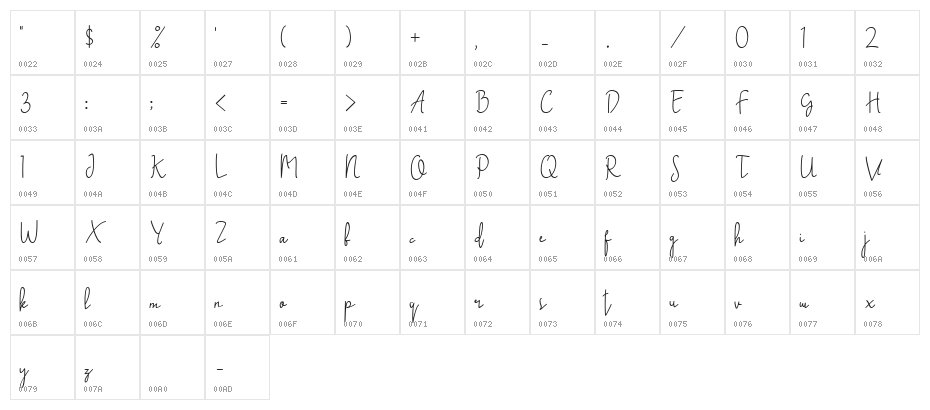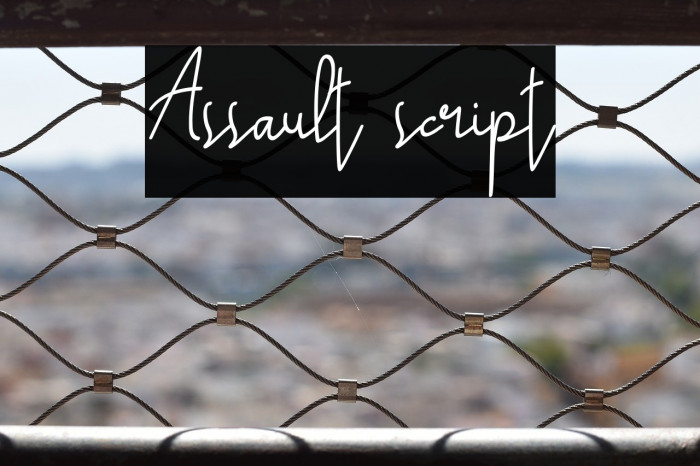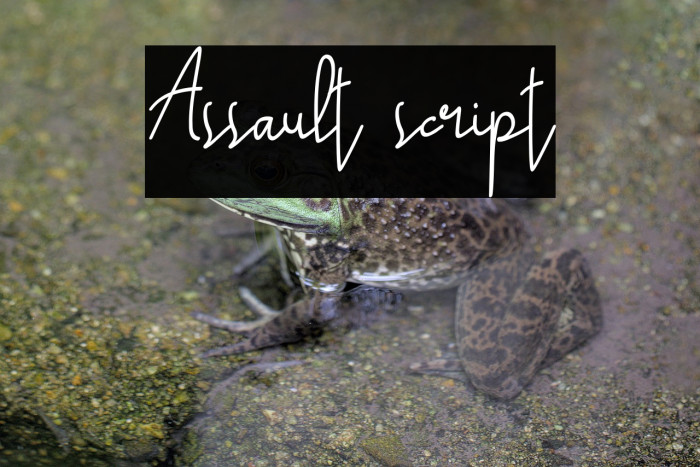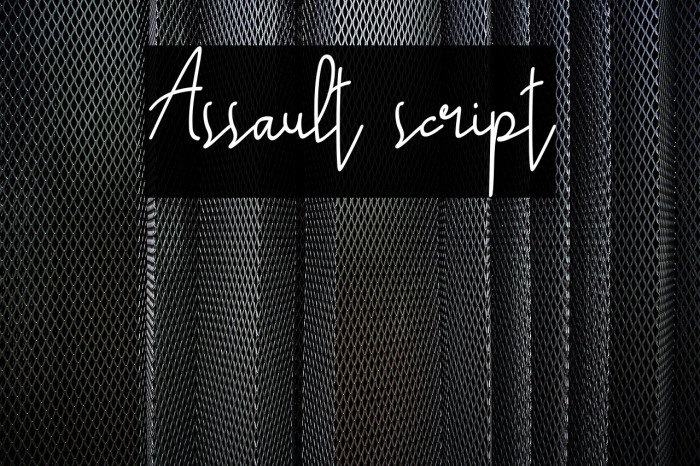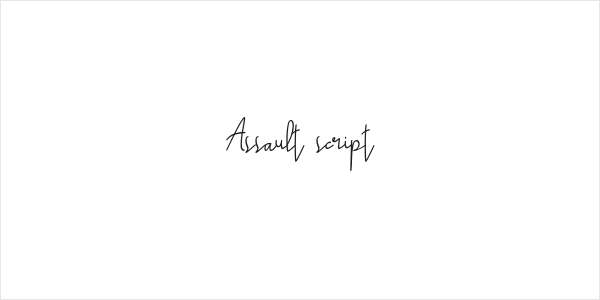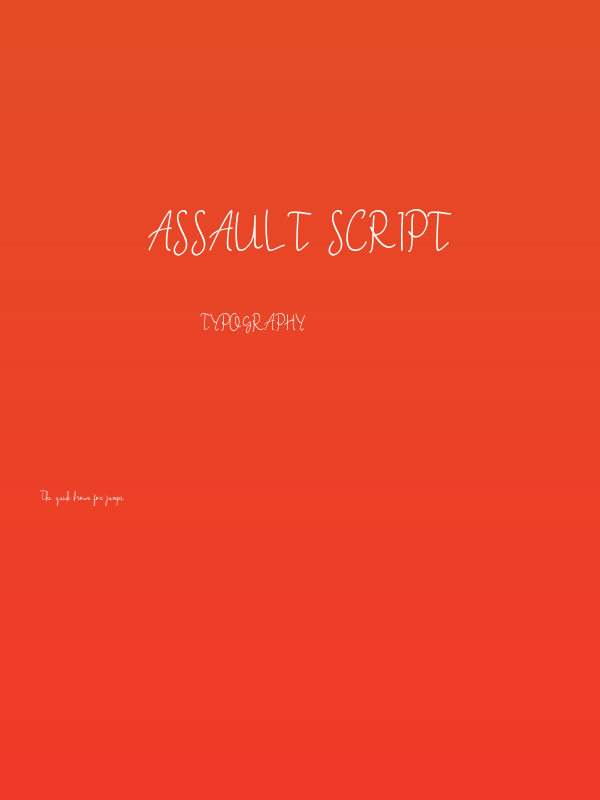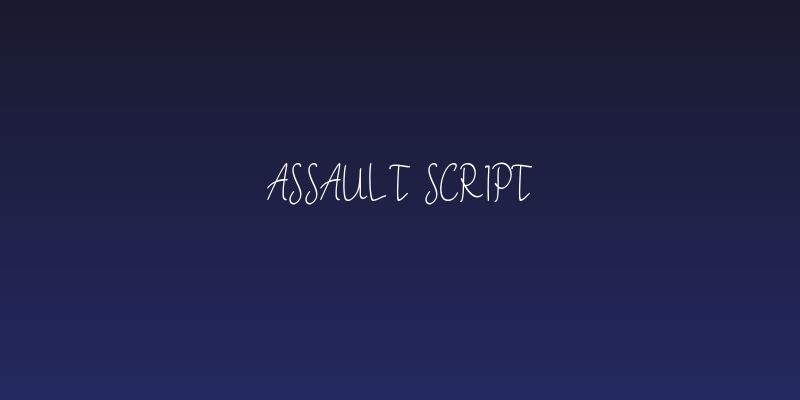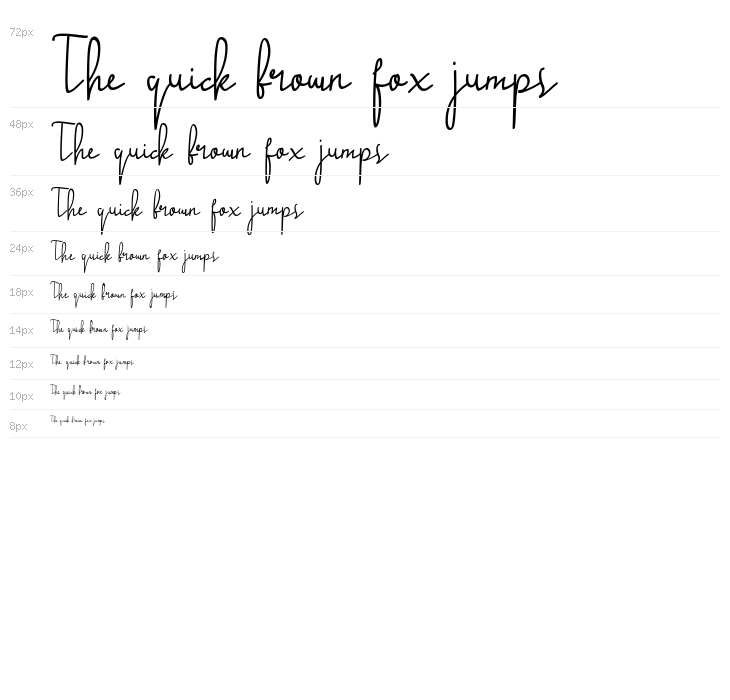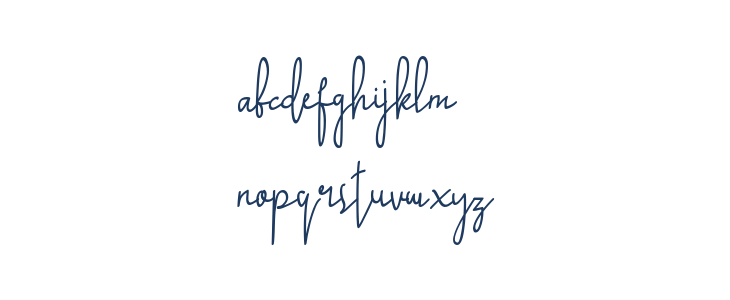
Assault script Font
Assault script Description
This font features a playful and elegant script style with a handwritten appearance. The uppercase letters are tall and slender, with a slight slant that adds a dynamic flow. Lowercase letters maintain a consistent style, with smooth curves and loops that enhance its casual yet sophisticated look. The numerals are clear and easy to read, matching the overall aesthetic. Special characters are well-integrated, maintaining the font's cohesive style. This font's unique charm makes it suitable for a variety of creative projects.
| Use Case | Logos, Invitations, Greeting Cards |
| Proposed Projects | Ideal for wedding invitations, greeting cards, logos, and branding materials that require a personal touch. |